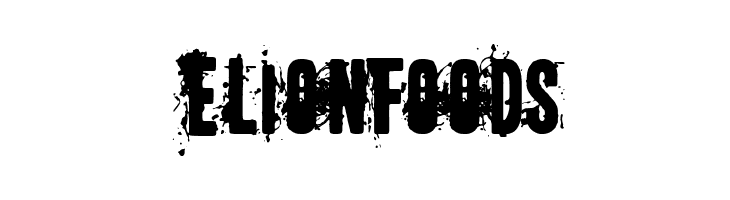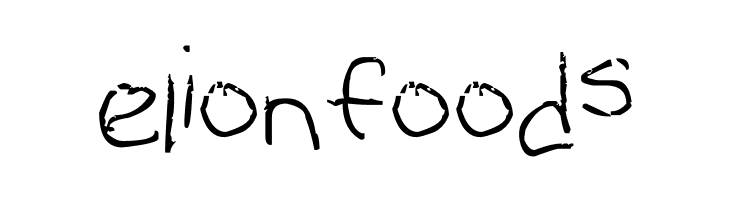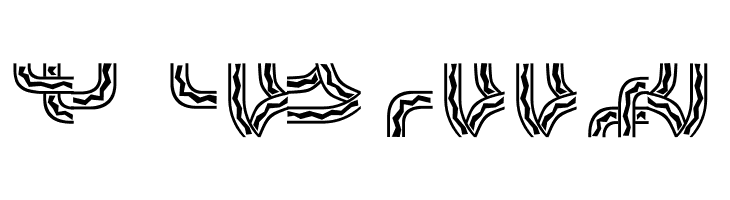
• Entertainment 4 Digital Font
A bold, futuristic font with rounded edges and a digital aesthetic.
• Epistolar
• EpoXY histoRy
A bold, distressed font with a grunge texture and rugged appearance.
• epx2
• Equvalent Bold
A bold, rounded font with a modern and friendly aesthetic.
• Erin's Handwriting
A casual, handwritten-style font with irregular strokes and playful character spacing.
• Eroded Denim
A distressed, slab serif font with a rugged, worn appearance.
• Escabetxina
A bold, distressed font with splattered, grunge-style characters.
• Escrita Hand
• Eskimo and Polar Bear
A playful, jagged font with an icy, adventurous feel.